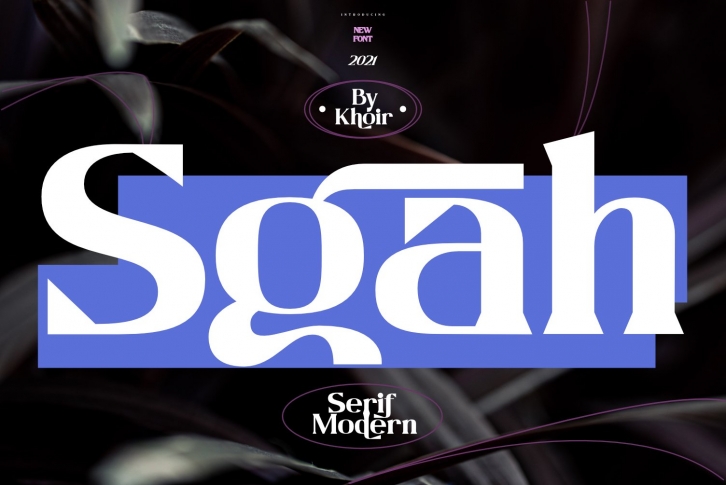
Introducing, Sgah - Modern serif typeface. With sharp angles, but  looks good and stands out for titles, headlines, logos, etc. It is suitable to be applied to various other formal forms such as posters, invitations, labels, magazines, books, greeting / wedding cards, packaging, fashion, music, novels, make up, labels or any type of advertising purpose.
- Uppercase Characters
- Lowercase Characters
- Alternates